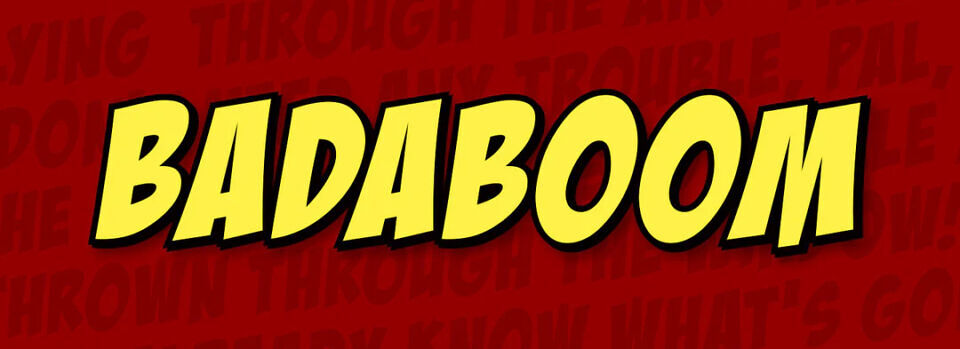
Badaboom BB Font
Badaboom BB Font is a bold, explosive typeface with a comic book flair. Its thick, all-caps letters feature dynamic angles and a slightly distressed texture, perfect for capturing attention. Designed with a playful, energetic vibe, it evokes the sound effects of classic superhero comics.
Available in a single, punchy style, this font is ideal for posters, headlines, or anything needing a loud, fun statement. Badaboom BB delivers a visual “pow,” making every word burst with action and excitement.